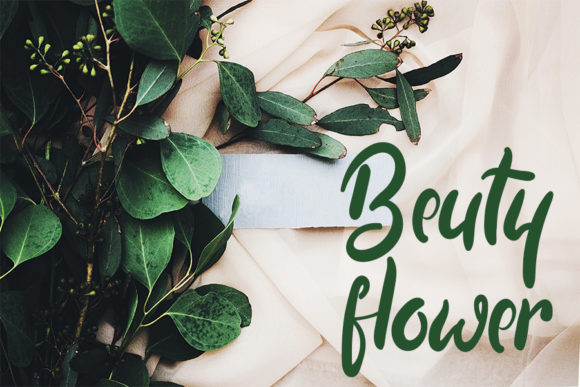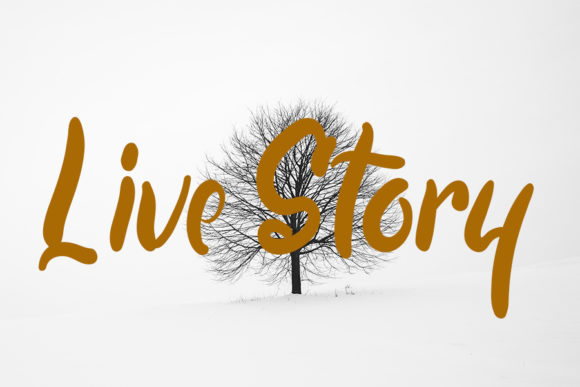
Bellarosa Font
db-ku.com - Script & Handwritten -- Bellarosa is a flowing, thick lettered handwritten font. Fall in love with its incredibly versatile style and use it to create spectacular designs!